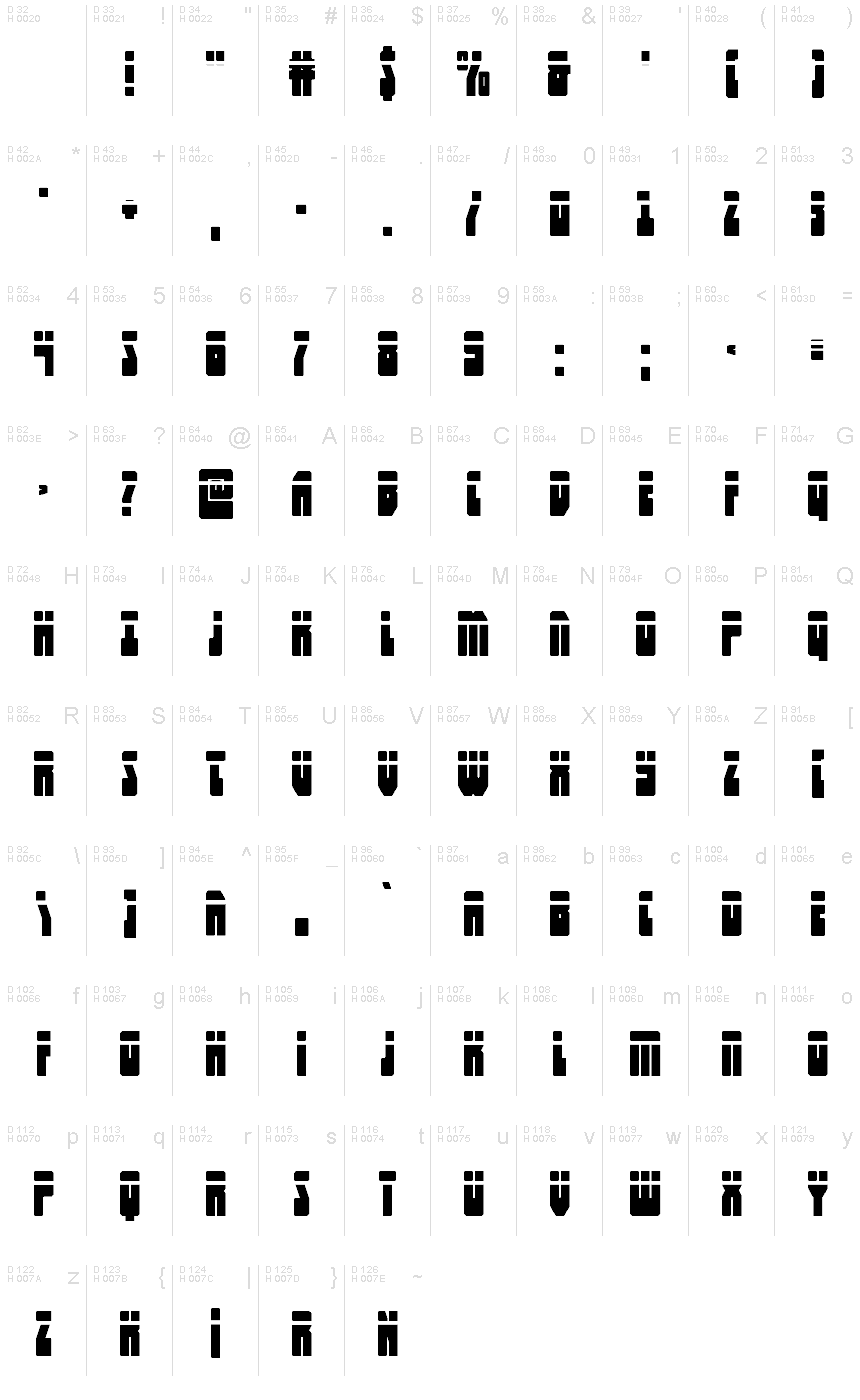
Elastic Lad Expanded Laser
Elastic Lad Expanded Laser font is a bold display font that adopts a groovy style with a strong geometric and experimental touch. The condensed design by Iconian Fonts delivers a minimalist avant-garde flare, expanding the boundaries of modern typography. Elastic Lad Expanded Laser possesses an artistic and eye-catching look ideal for all sorts of digital projects.
Use this free display font to create wonderful posters, captivating headlines, and striking logos for brands or products. It is also suitable for books and magazine covers, movie posters or even DIY projects like invitations and greeting cards. Websites, applications, product packages, signage, stickers can also be designed with it in mind.